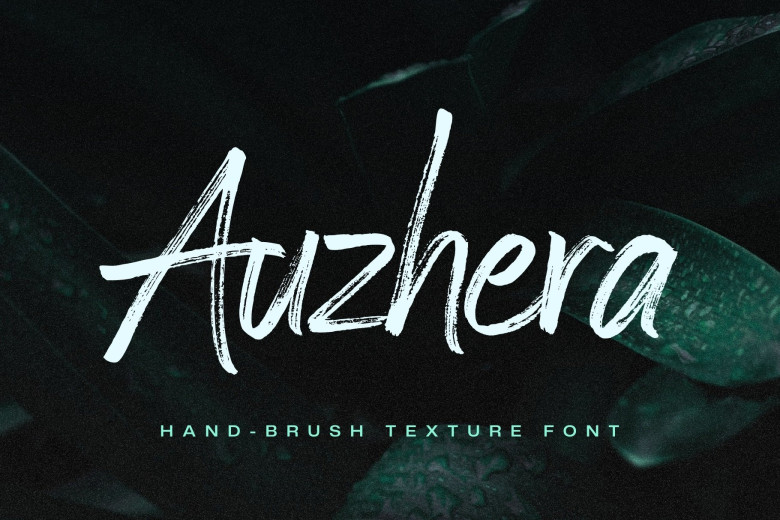
Auzhera Font
Auzhera is a brush font created with a real fude brush pen. When applied to your designs, The attractive brush font will bring them up to a whole new level! Crafted attention to detail, the entire brush script font boasts a unique brush texture that gives your designs an appealing, hand-written feel.
Auzhera Brush Script Font